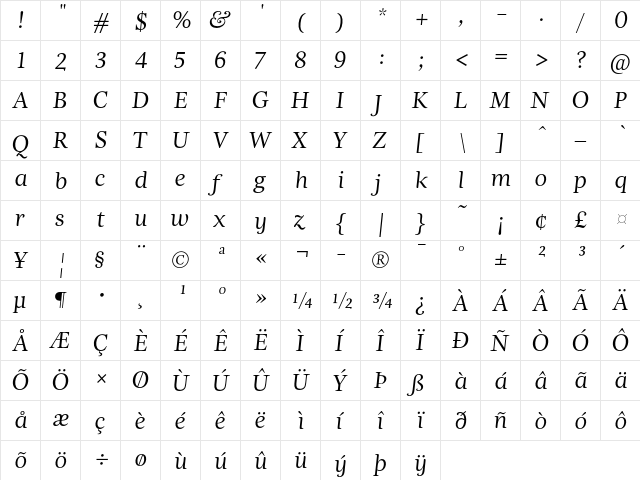
EstaPro Italic
| Foundry | Dino dos Santos _DSType |
| Designer | Dino dos Santos |
Design Context for EstaPro Typeface
EstaPro offers clean, dependable letterforms without strong stylistic allegiance, making it a practical choice for designers who need flexibility. The dynamic lean of this cut emphasises speed and emphasis in any layout.
Pro Tip: Use EstaPro for emphasis, pull quotes, and subheadings where its slanted energy can add rhythm to the layout.